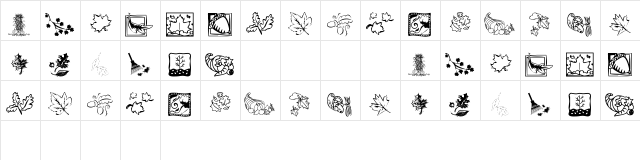
KR Autumn 2004 Regular Font Preview
KR Autumn 2004 Regular
Design Context for KR Autumn 2004 Typeface
KR Autumn 2004 is a composed and adaptable typeface that performs quietly and consistently across a wide range of design contexts.